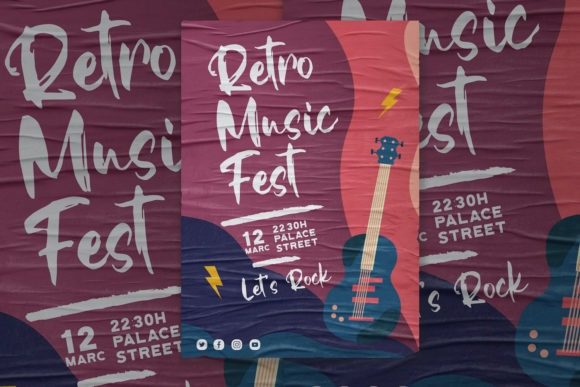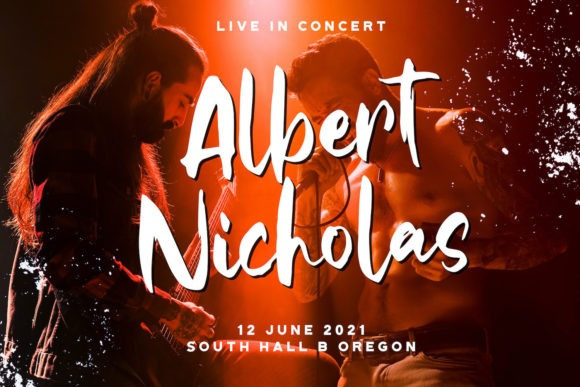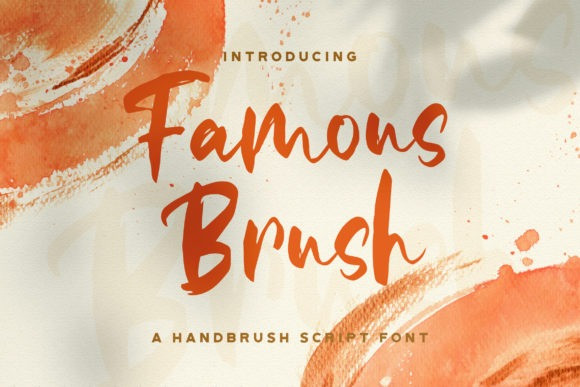
Famous Brush Font
Famous Brush Font is a cool, trendy and chic handwritten font. Versatile and casual, this font fits a wide pool of designs, elevating them to the highest levels. Add this font to your favorite creative ideas and notice how it makes them come alive!